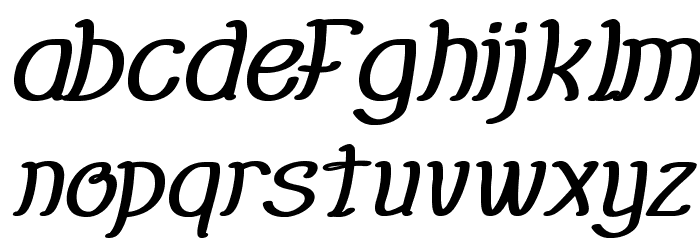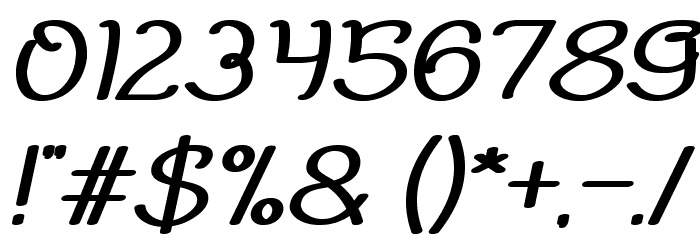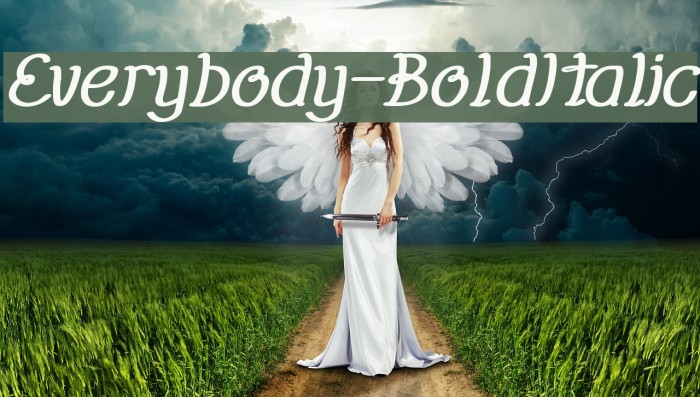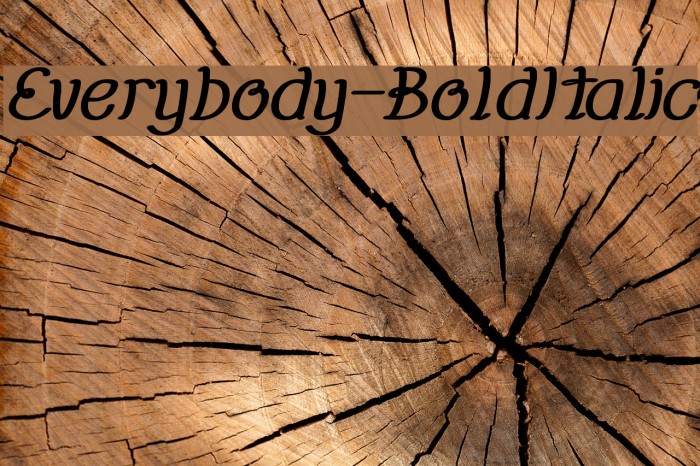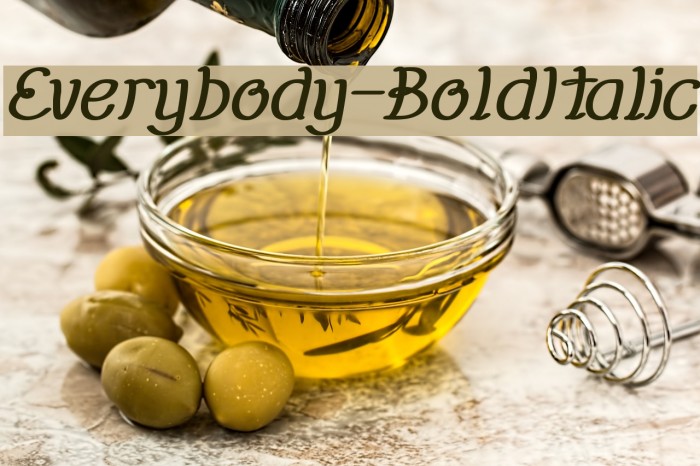
Everybody-BoldItalic Font
This font features a bold and italic style with a playful and dynamic appearance. The letters are slightly slanted, adding a sense of movement and energy. The strokes are thick and consistent, providing a strong visual impact. The characters have a rounded and smooth finish, which contributes to a friendly and approachable feel. This font is versatile, suitable for both casual and formal contexts, and can be used to convey a sense of creativity and enthusiasm.
A bold, italic font with a playful and dynamic style.
- Proposed Projects: Ideal for branding, posters, headlines, and creative projects that require a bold and energetic typeface.